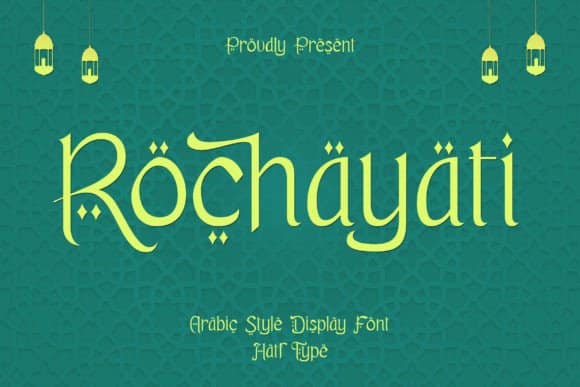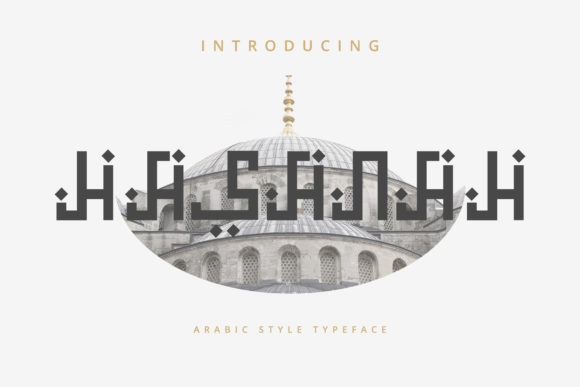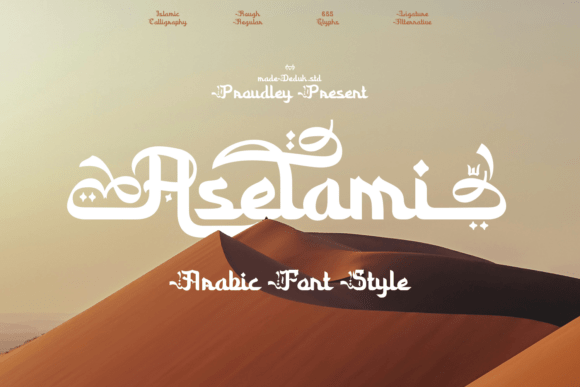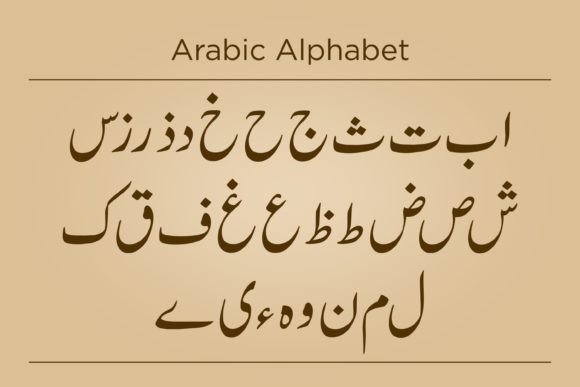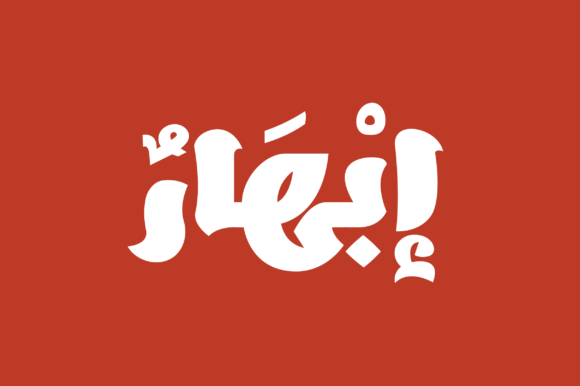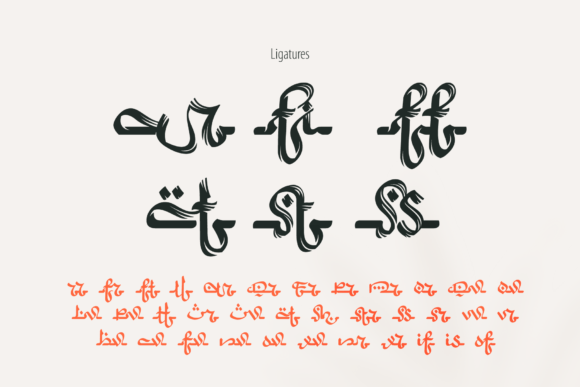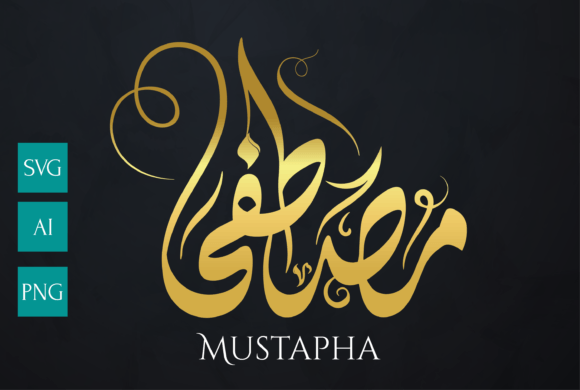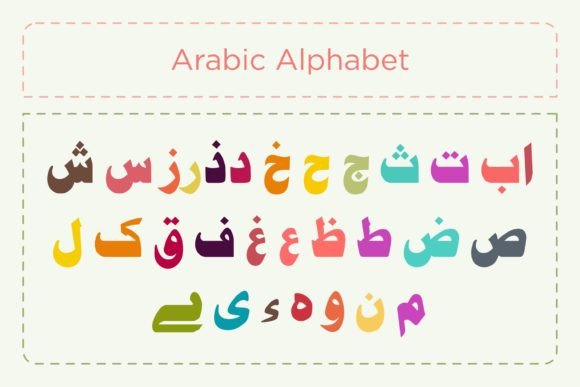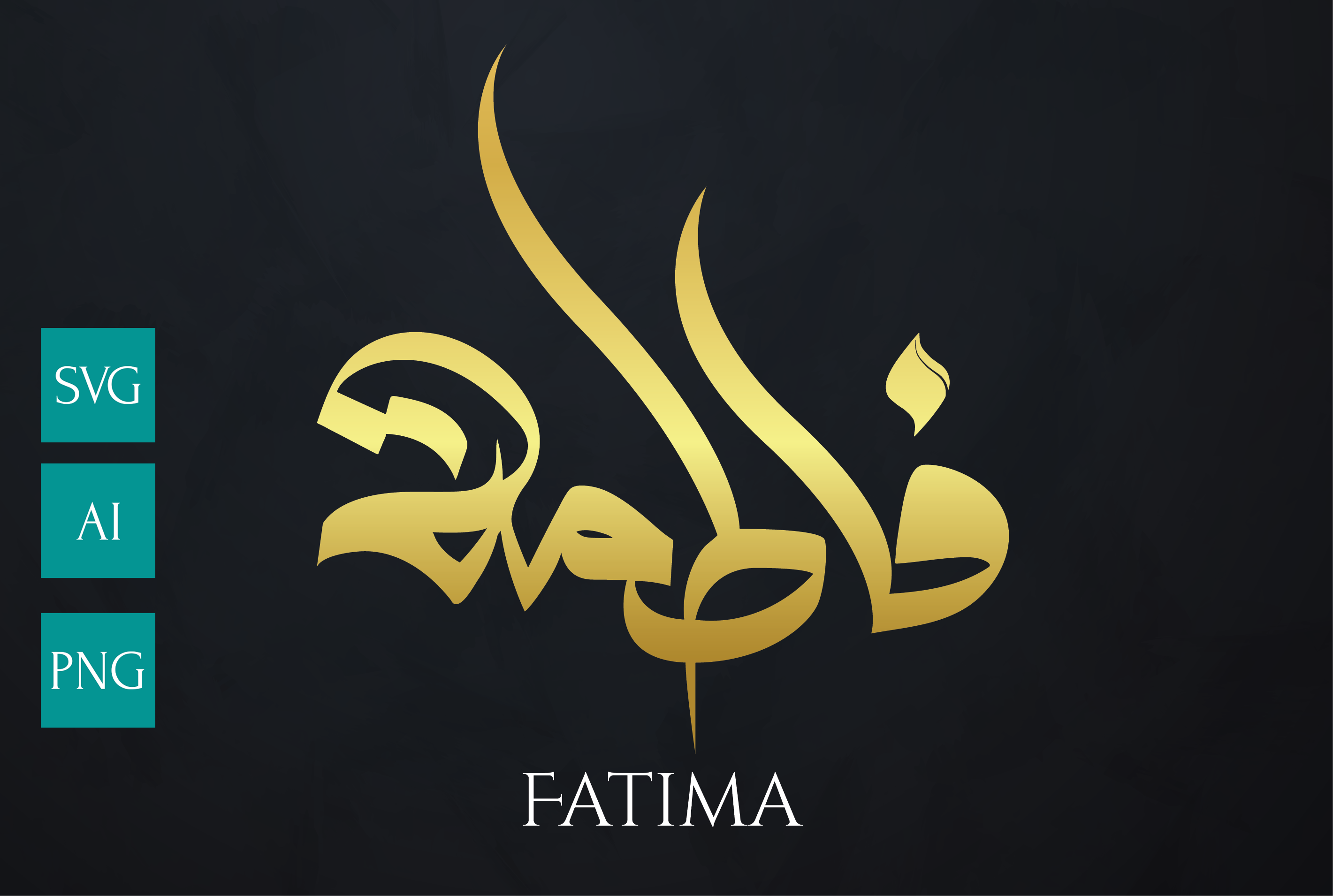
Arabic style fonts for Canva are taking center stage in design trends, offering a blend of cultural elegance and contemporary energy that instantly elevates visual projects. For designers, bloggers, Etsy sellers, and small business owners, choosing trending Arabic fonts adds intrigue, authenticity, and a multicultural touch to logos, packaging, social media graphics, and branding materials. With growing demand for designs inspired by Middle Eastern calligraphy and modern geometric shapes, this font category is perfect for those aiming to capture global and US audiences alike. Whether you’re targeting diverse markets or simply want to bring unique flair to invitations or digital ads, integrating Arabic calligraphy fonts unlocks new creative potential. Thanks to accessible platforms like Canva and Creative Fabrica, sourcing both free and premium Arabic style fonts has never been easier, ensuring even entry-level creatives can effortlessly enhance their design toolkit. For more ideas on pairing and usage, check out our 21 Top Brush Fonts for Canva Designs (2026 Edition) for deeper inspiration.
| Rochayati Font | Modern Calligraphy | Branding, Invitations | Premium (Creative Fabrica) |
| Hasanah – Arabic Style Typeface | Traditional/Display | Restaurant Menus, Posters | Premium (Creative Fabrica) |
| Aselami Font | Handwritten Script | Wedding Invites, Social Posts | Premium (Creative Fabrica) |
| Nastaliq Font Arabic Alphabets | Classic Nastaliq | Book Covers, Religious Materials | Premium (Creative Fabrica) |
| Ebhaar Font | Modern Arabic Display | Logos, Branding, Apparel | Premium (Creative Fabrica) |
Rochayati Font by Hatf Type · Creative Fabrica
Rochayati Font shines with its modern calligraphy style, transporting a touch of Middle Eastern elegance into any design. The dramatic curves make it perfect for branding, upscale invitations, or editorial layouts, ensuring your text feels graceful yet compelling. Use Rochayati for standout logos, stylish Instagram posts, or luxury packaging to achieve a sophisticated, multicultural vibe.
Hasanah – Arabic Style Typeface Font by rometheme · Creative Fabrica
Hasanah brings the mystique of traditional Arabic forms, shaped for contemporary headlines and decorative uses. Its bold strokes and striking silhouette make it excellent for restaurant menus, event flyers, or Middle Eastern-inspired packaging. Hasanah’s display-driven flair allows your Canva designs to feel both authentic and engaging in multicultural branding projects.
Aselami Font by madeDeduk · Creative Fabrica
Aselami combines a handwritten feel with subtle Arabic flourishes, resulting in a unique font suitable for heartfelt projects. Its crisp, informal lines make it suitable for wedding invitations, quote graphics, and personal branding. If your Canva visuals need an approachable yet artistic touch, Aselami offers excellent versatility.
Nastaliq Font Arabic Alphabets Graphic by shahsoft · Creative Fabrica
This Nastaliq style font masterfully recreates the iconic sloping script known in Persian and Urdu literature. It’s ideal for classical book covers, poetry posters, or any religious design needing authenticity. Designers aiming to evoke literary tradition and timeless grace will find this font particularly inspiring for both digital and print projects.
Ebhaar Font by Mostafa El Abasiry · Creative Fabrica
Ebhaar takes a modern Arabic display approach with sharp, clean forms that fit well into logos and apparel graphics. Its dynamic letter shapes offer versatility, working across headings, branding suites, or trendy T-shirt designs. If you want to capture a cool vibe with Arabic calligraphy influence, Ebhaar makes your concepts look truly fresh.
Name Arabic Calligraphy Vector (Ibrahim) Graphic by Josehysf · Creative Fabrica
This name-based Arabic calligraphy design for “Ibrahim” is perfect for personalized gifts, business signage, and branding elements. Its detailed swashes and symmetric composition add a beautiful, bespoke feel. Highlight individual identity or signature branding in Canva projects with this vector style artwork.
Arabic Script Font by kaer_cf · Creative Fabrica
The Arabic Script Font is a classic representation of handwritten Arabic styles, featuring gentle strokes and a fluid flow. It’s well-suited for certificates, event invitations, and spiritual art where traditional aesthetics matter. Use it in Canva to instantly infuse authenticity and refinement into your visual materials.
Name Arabic Calligraphy Vector Mustapha Graphic by Josehysf · Creative Fabrica